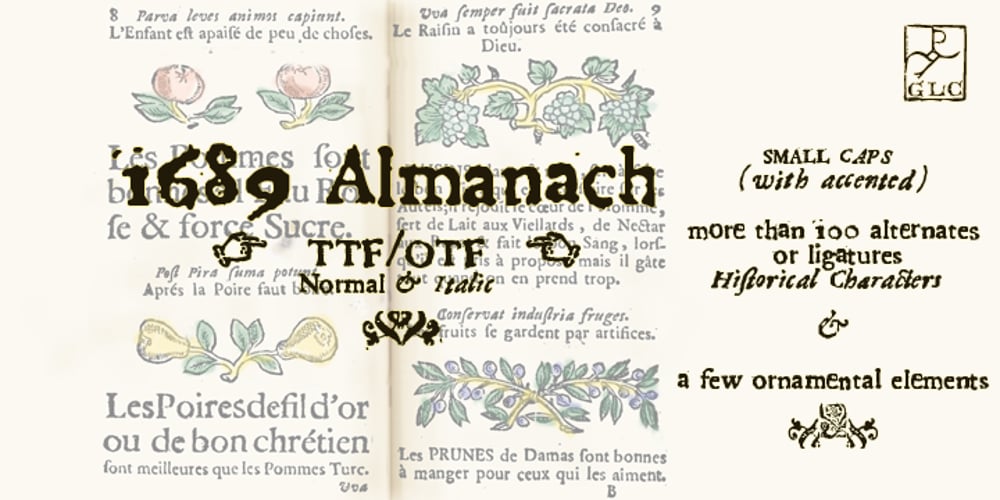
1689 Almanach
1689 Almanach font
1689 Almanach Font Family was designed by published by GLC. 1689 Almanach contains 1 styles and family package options. This family was inspired by the eroded and tired fonts used by printers from the sixteenth century to the early years of twentieth for cheap or fleeting works, like almanacs, adverts, gazettes or popular novels. This font is partially derived from a dirty Garamond used to print a small school booklet for children, in Dijon (France) circa 1689. There are two styles: Normal and Italic, with small caps and lower cases alternates added and a few fleurons from the same printer. Its original cap height is about seven millimeters. Decorated letters like 1512 Initials, 1550 Arabesques, 1565 Venetian or 1584 Rinceau from GLC Foundry, can be used with this family without anachronism.